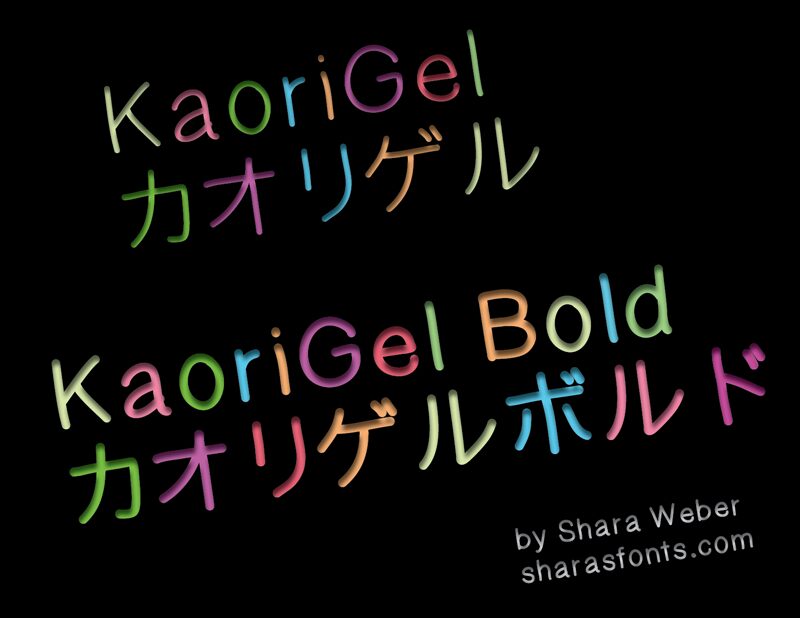
KaoriGel by SharaWeber is a free Japanese-inspired handwritten display font with tall, narrow, loosely drawn letters and an easy monoline stroke. Its softly uneven curves and open forms feel quick and uncorrected.
A casual noodle shop or snack brand could use it for packaging and signage, where the informal drawing suggests a warm, personal counter-service atmosphere. It also suits children's publishing and event posters, with the lettering able to become part of a sketched storefront, menu board, or playful illustrated scene.
Japanese font with Hiragana, Katakana, and Latin characters.